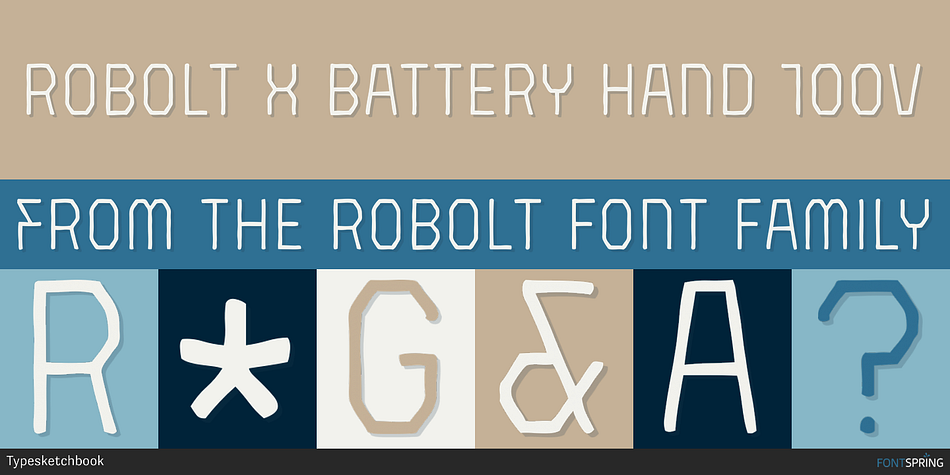
ROBOLT X BATTERY HAND 100V
Designed by Chatnarong Jingsuphatada, Robolt is a multiple classification font family. This typeface has thirty styles and was published by Typesketchbook.
It started with the idea that different things can be mixed infinitely.
It started with the idea that different things can be mixed infinitely. Robolt comprises four designs with multiple options to add variety and playfulness.
Battery and Machine have a retro touch which reminds one of toy labels from the 80’s while Vintage is rendered as Didot style with different textures to choose from. The streamlined Handdrawn style is nicely put in contrast with the solid types. Elements are also available to complement the letters.
The set is made up of 29 letters of four families to serve your creativity.
Style Hand 100v